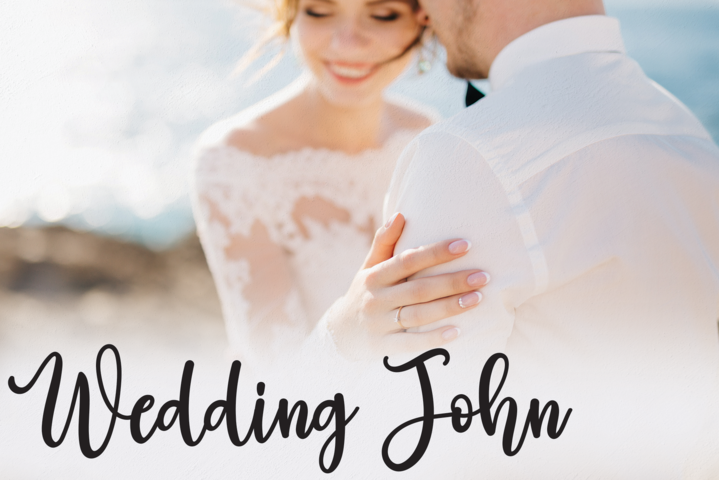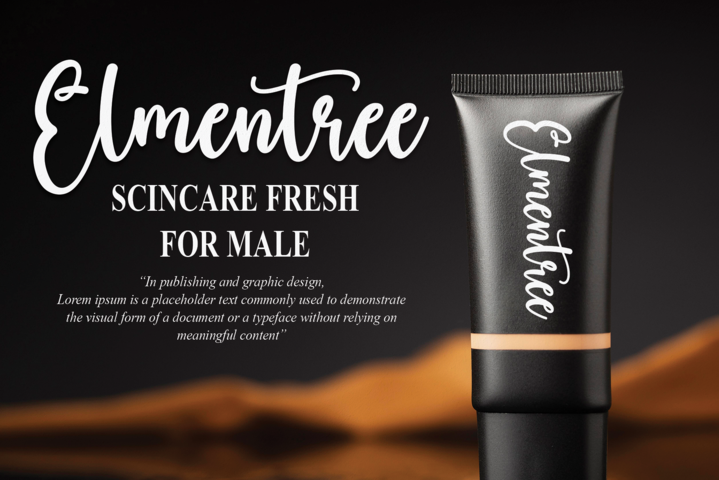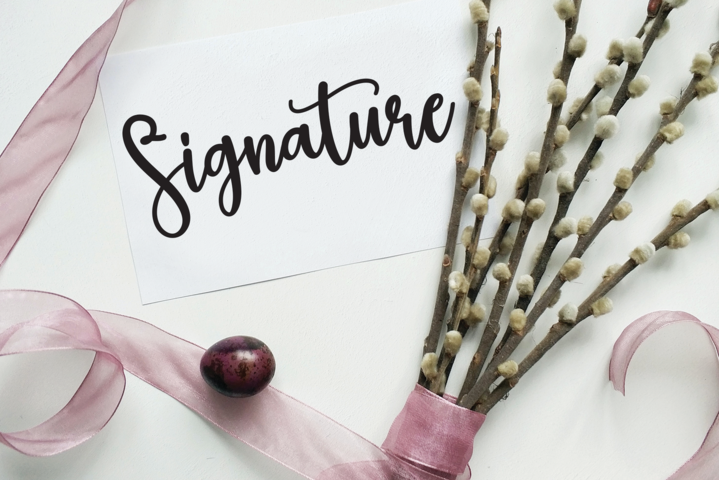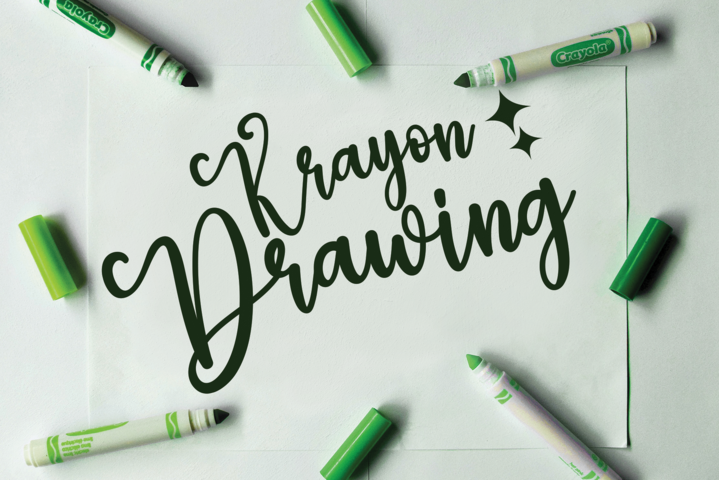
January Font
January Script Font
This is a beautiful script font perfect for wall displays, wedding invitations, social media posts, logos, advertisements, product packaging, product designs, labels, photography, watermarks, invitations, stationery, and any project that requires a handwritten touch.
the latest style letters are perfect for wall displays, wedding invitations, social media post logos, advertisements, product packaging, product designs, labels, photography, watermarks, invitations, stationery, and any project that requires taste handwriting.